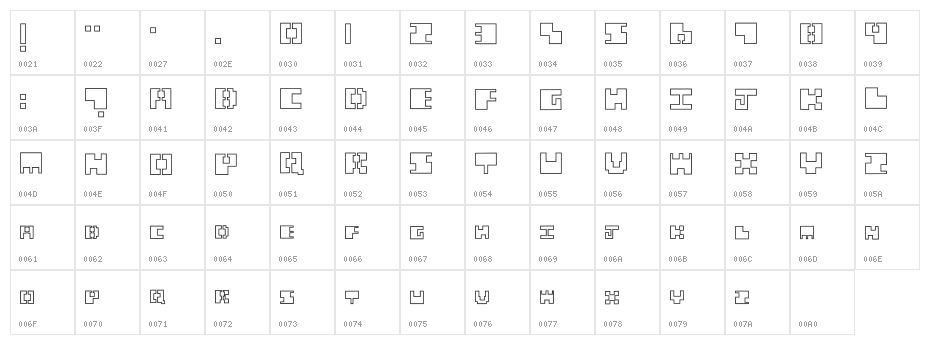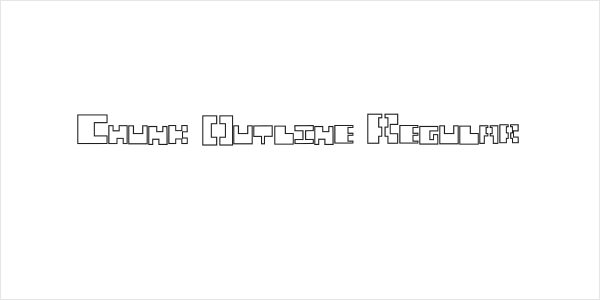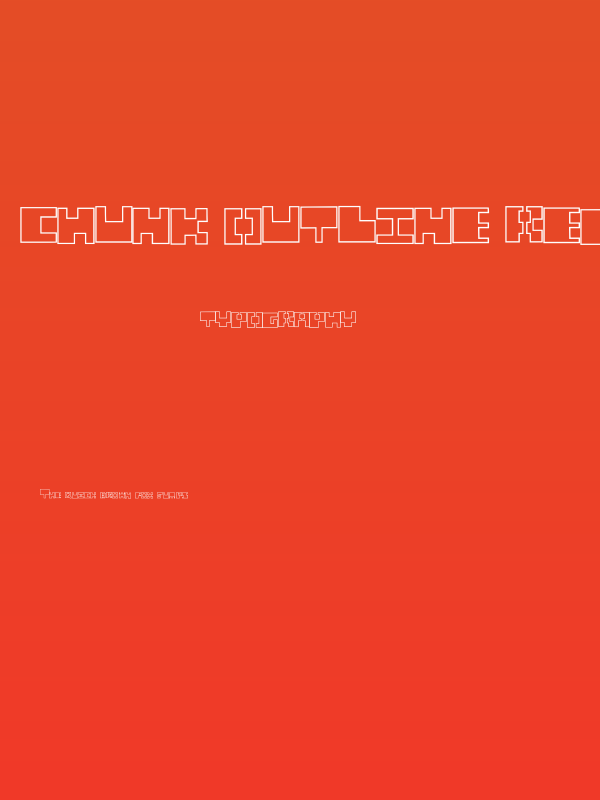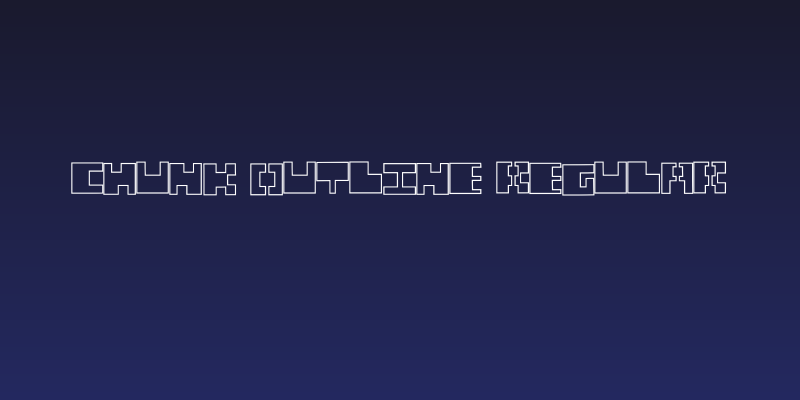
Chunk Outline Regular Font
Chunk Outline Regular Description
This font features a bold, geometric outline style with a blocky, angular appearance. Each character is defined by thick, uniform lines that create a distinct and modern look. The uppercase and lowercase letters maintain a consistent height, contributing to a cohesive visual flow. The numbers and special characters follow the same design principles, ensuring uniformity across all glyphs. The font's outline nature gives it a unique, almost stencil-like quality, making it stand out in any design. Its structured form and clear edges make it suitable for various creative applications.